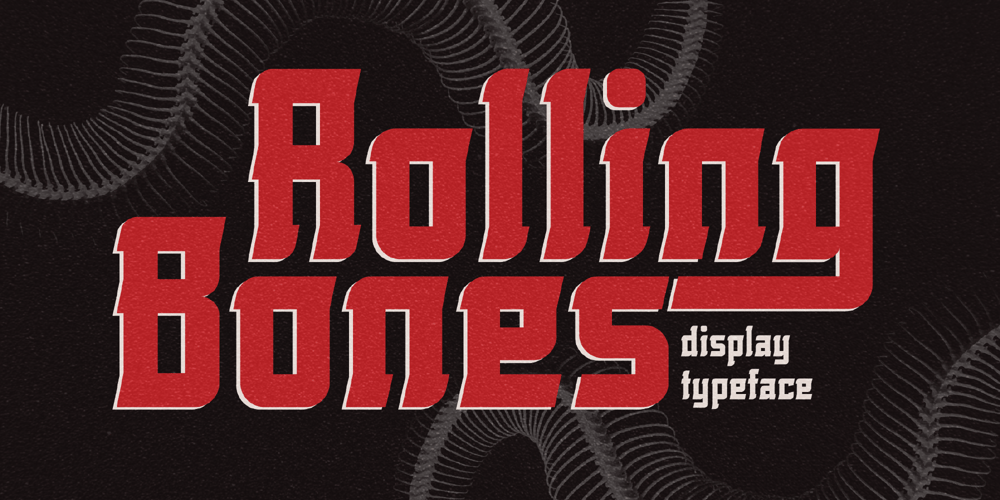
Rolling Bones Font Family was designed by Heru Utama Putra and published by Letterena Studios. Rolling Bones contains 2 styles and family package options. Proudly present Rolling Bones, a modern and classic slab serif font with a unique style and modern look. This typeface is perfect for an elegant & luxury logo, book or movie title design, fashion brand, magazine, clothes, lettering, quotes, and so much more.